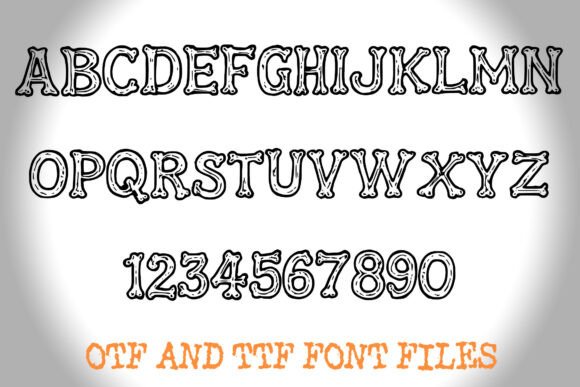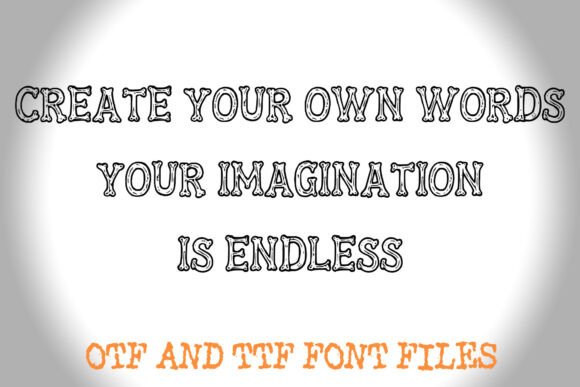
Bones Halloween Font: A Spook-tacular Addition to Your Design Arsenal
Are you ready to add a dash of spooky fun to your designs? Look no further than the Bones Halloween Font, a playful skeleton cartoon style font that’s perfect for the Halloween season and beyond. With its quirky charm and versatility, this font is sure to become a staple in every designer’s collection.
What is Bones Halloween Font?
The Bones Halloween Font, also known as Bones Halloween Alphabet Lettering ABC Skeleton Text Font, is a unique and creative font that features a skeleton cartoon style. This fun font allows you to create your own words and customize them to your heart’s content, with the ability to change colors and add your own personal touch.
Key Features of Bones Halloween Font
- Unique Skeleton Design: The font features a playful skeleton design that’s sure to stand out in any design.
- Customizable: With the ability to change colors and add your own text, you can make this font truly your own.
- Quirky and Fun: This font is perfect for adding a touch of whimsy and humor to your designs.
- Versatile: The Bones Halloween Font can be used in a wide range of contexts, from Halloween-themed designs to everyday projects.
Uses for Bones Halloween Font
The Bones Halloween Font is incredibly versatile, and can be used in a variety of design projects, including:
- Halloween-themed designs: Create spooky signs, invitations, and decorations with a personalized touch.
- Party invitations: Add a touch of whimsy to your party invitations and get ready to throw a spook-tacular party.
- Social media graphics: Use the Bones Halloween Font to create eye-catching social media graphics that are sure to stand out.
- Crafting projects: This font is perfect for crafters who love to create handmade cards, gift tags, and other paper crafts.
Tips for Using Bones Halloween Font
Here are a few tips for getting the most out of the Bones Halloween Font:
- Experiment with colors: Try out different color combinations to find the perfect look for your design.
- Mix and match: Combine the Bones Halloween Font with other fonts and graphics to create a unique look.
- Don’t be afraid to get creative: This font is all about having fun, so don’t be afraid to try out new and unusual design ideas.
The Bones Halloween Font is a fun and versatile font that’s perfect for designers and crafters who love to add a touch of whimsy to their projects. With its unique skeleton design and customizable features, this font is sure to become a staple in every designer’s collection. So why wait? Download the Bones Halloween Font today and get ready to add a spook-tacular touch to your designs!